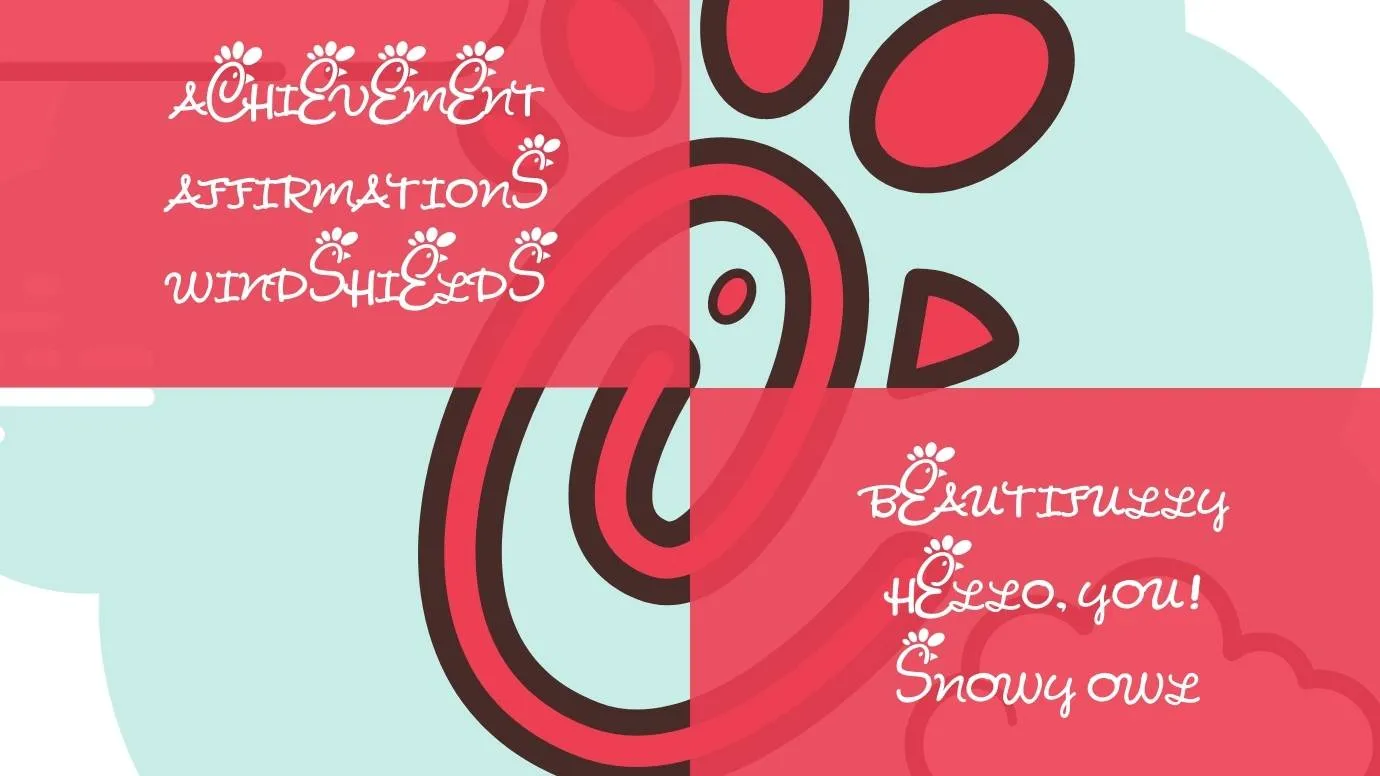
Chick-fil-A font is unique, and as a group member of the script typeface family, the style of this texture is handwritten. This is a texture style that is perfect for adding a touch of personality to your designs. Chick-fil-A is well-known for its delicious chicken sandwiches.
It is a handwritten style that is based on the lettering used in the company’s logo. It has a casual, playful feel that is perfect for creating whimsical designs. This typeface is similar to Palmer Script font.
Chick-fil-A’s font can be used for a variety of projects, including branding, marketing materials, and web design. It’s perfect for adding a touch of fun and personality to your designs.
Designer of Chick-fil-A font
This unique style of font is designed by one of the famous designers, which is known as FontGrill.
This font family includes a single style of design, this regular style consists of glyphs, digits, capital letters, small letters, punctuation, a set of characters, and a wide range of language support.
View of Chick-fil-A font
What type of font is Chick-fil-A font?
Chick-fil-A’s font is unique, and as a group member of the script typeface family, the style of this texture is handwritten. This is a texture style that is perfect for adding a touch of personality to your designs.
Who created the Chick-fil-A font?
This unique style of font is designed by one of the famous designers, which is known as FontGrill.
What font goes with Chick-fil-A font?
There are so many fonts, that are similar to this font but, the most pairing and similar font to this texture is the Atatrk font.